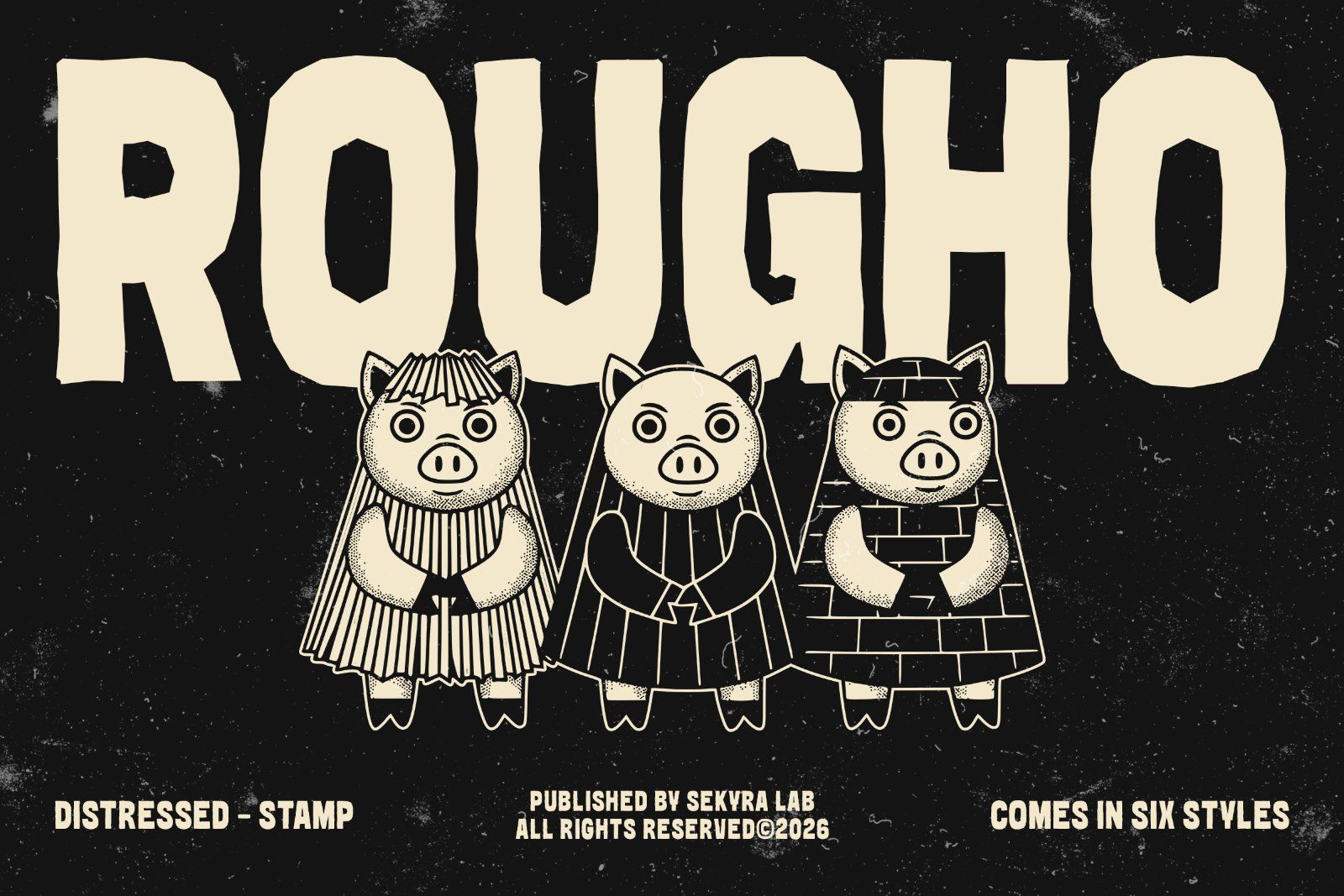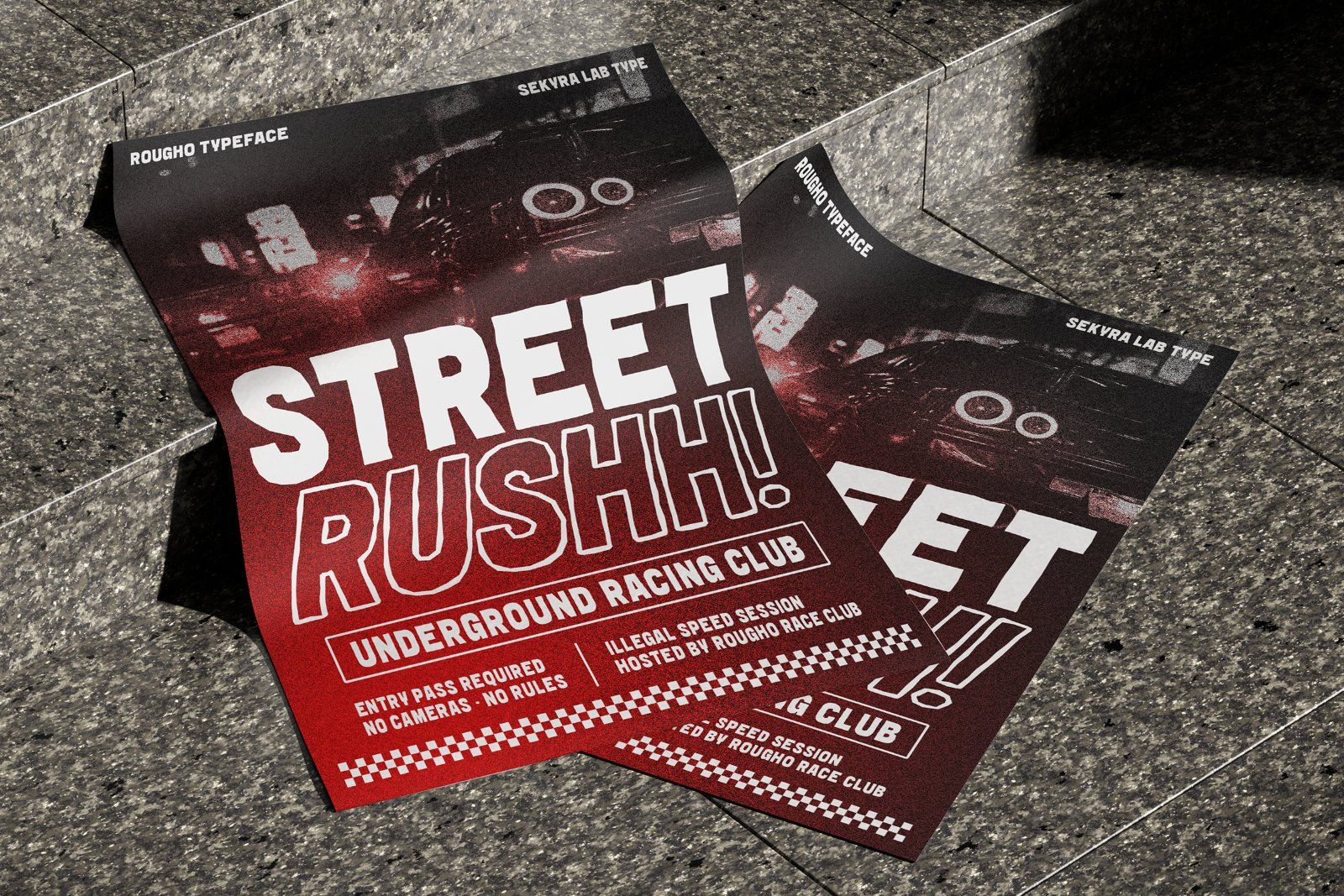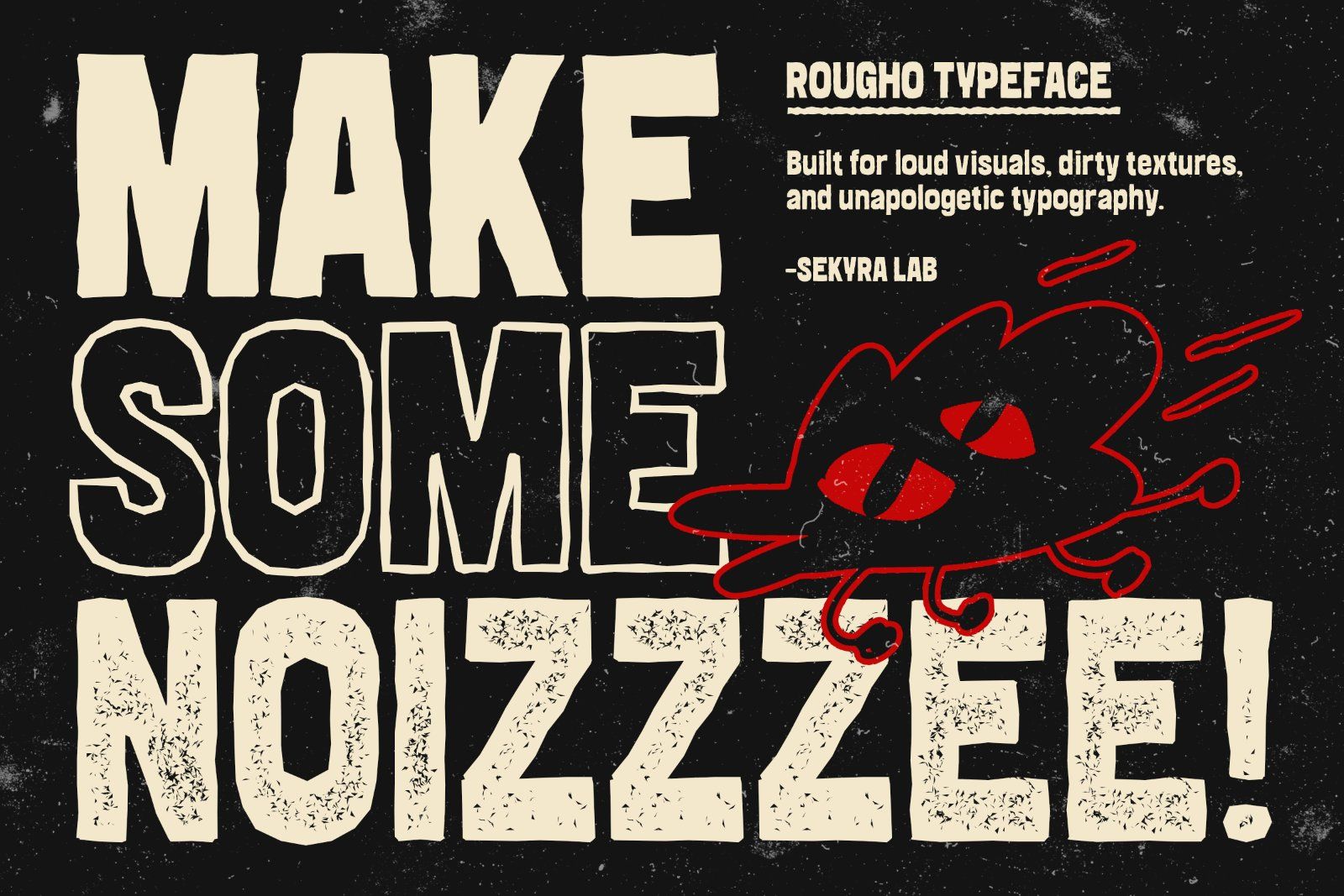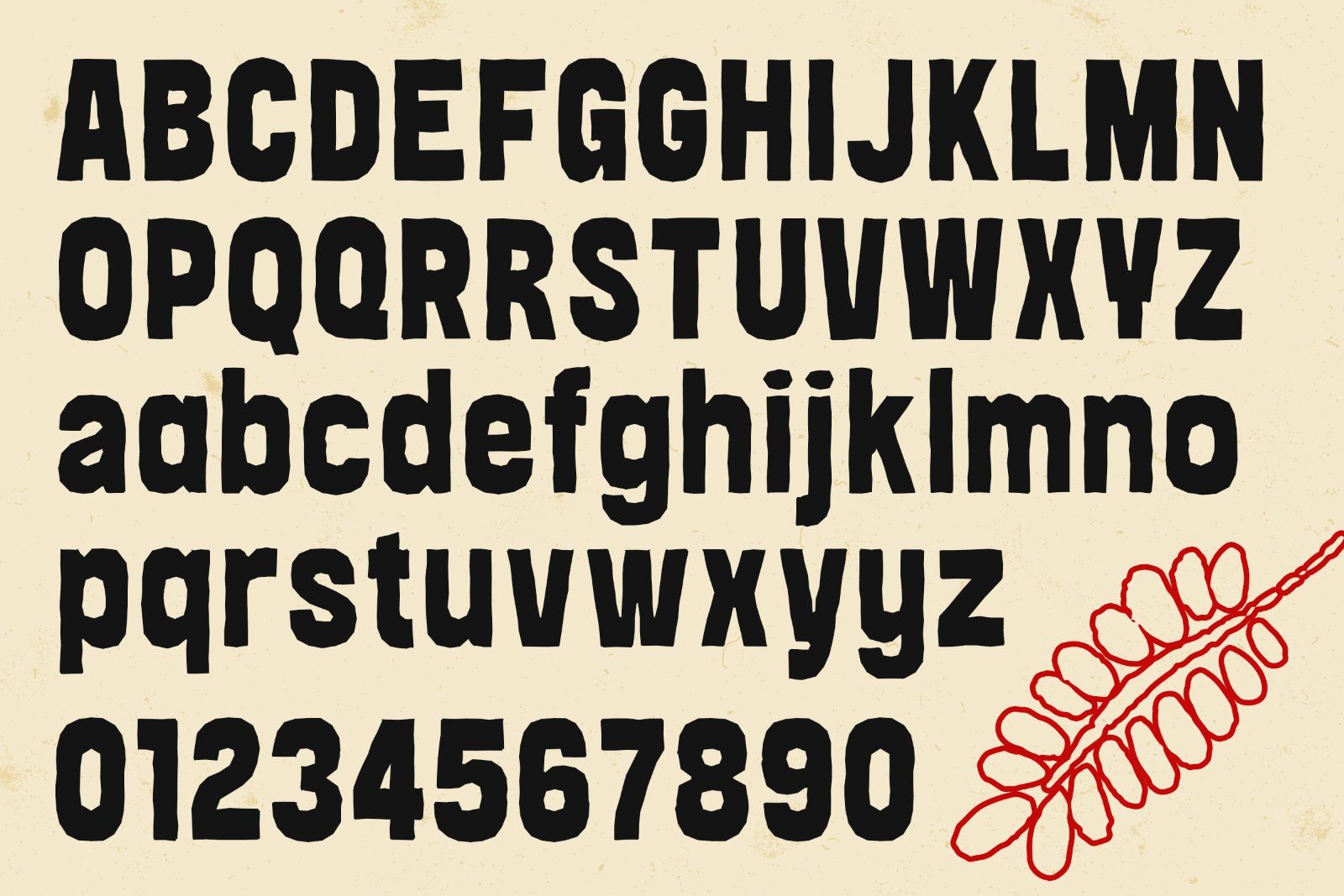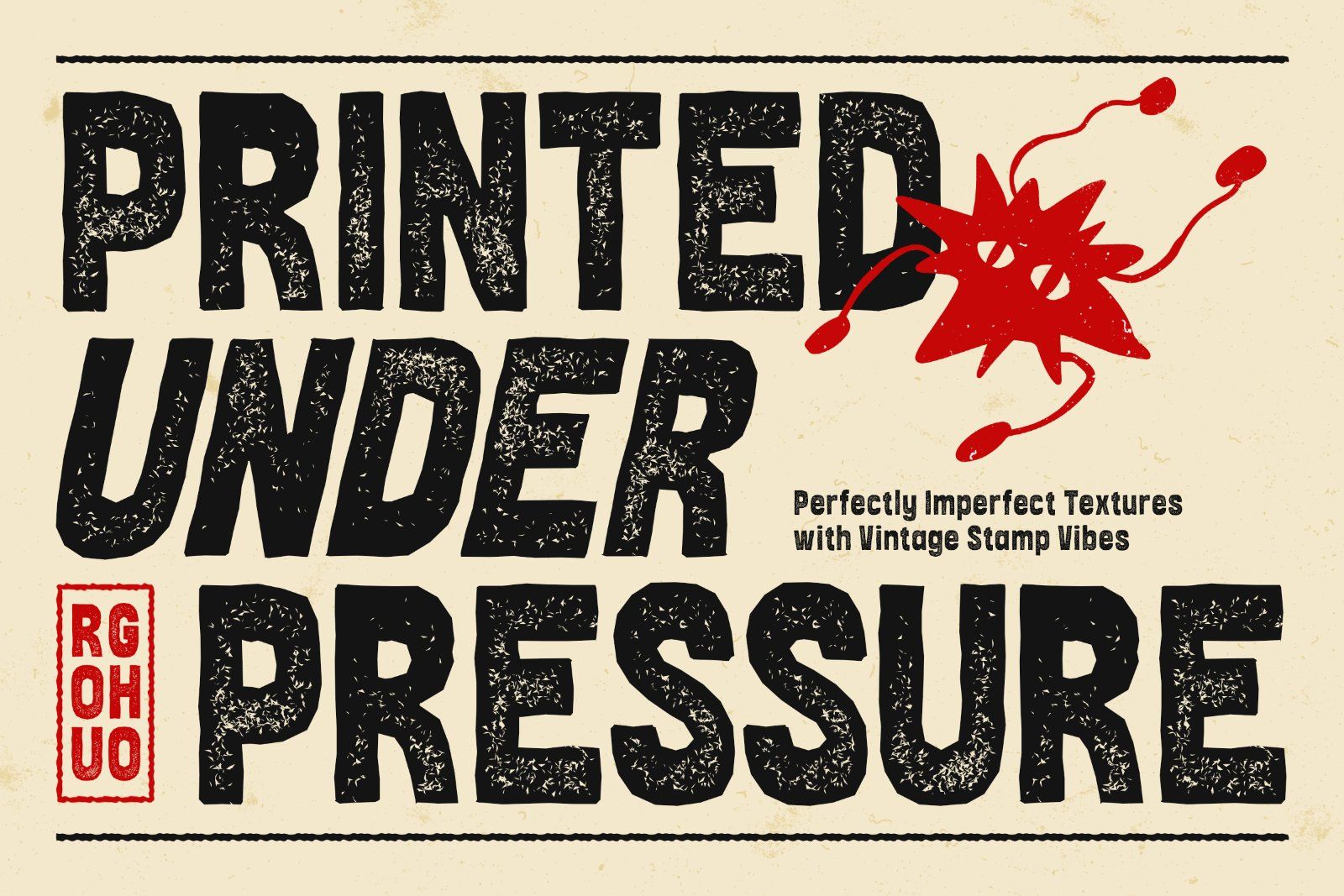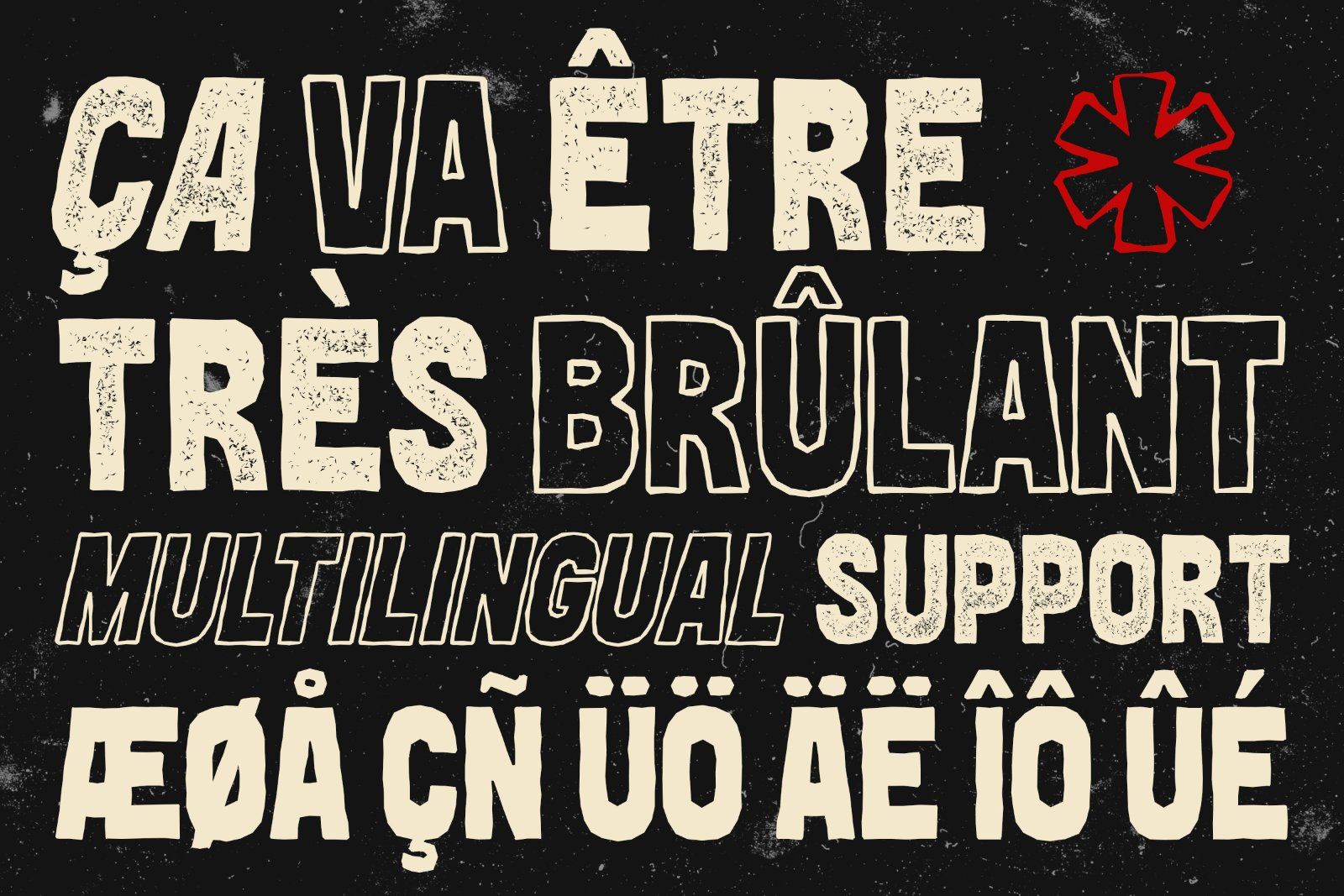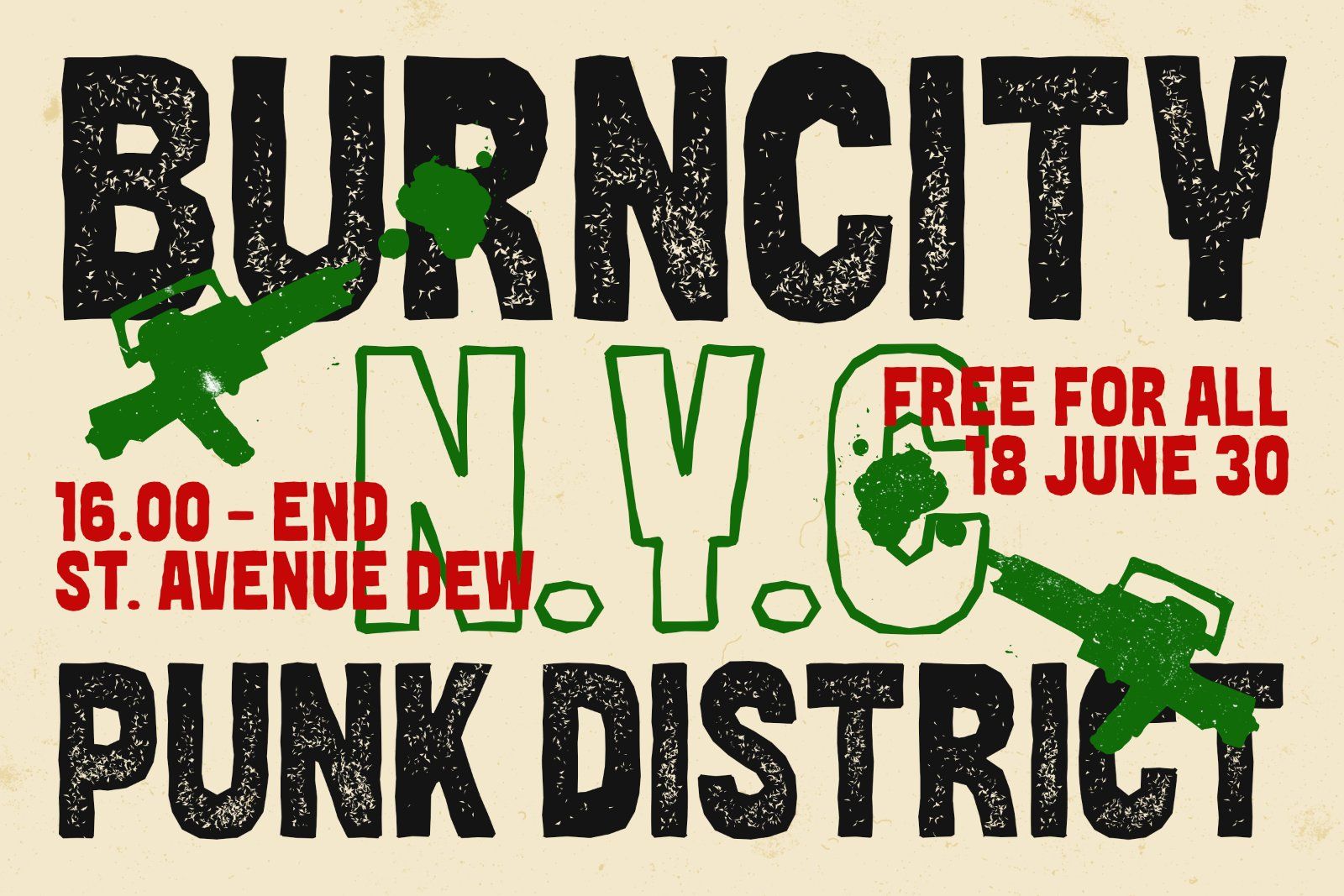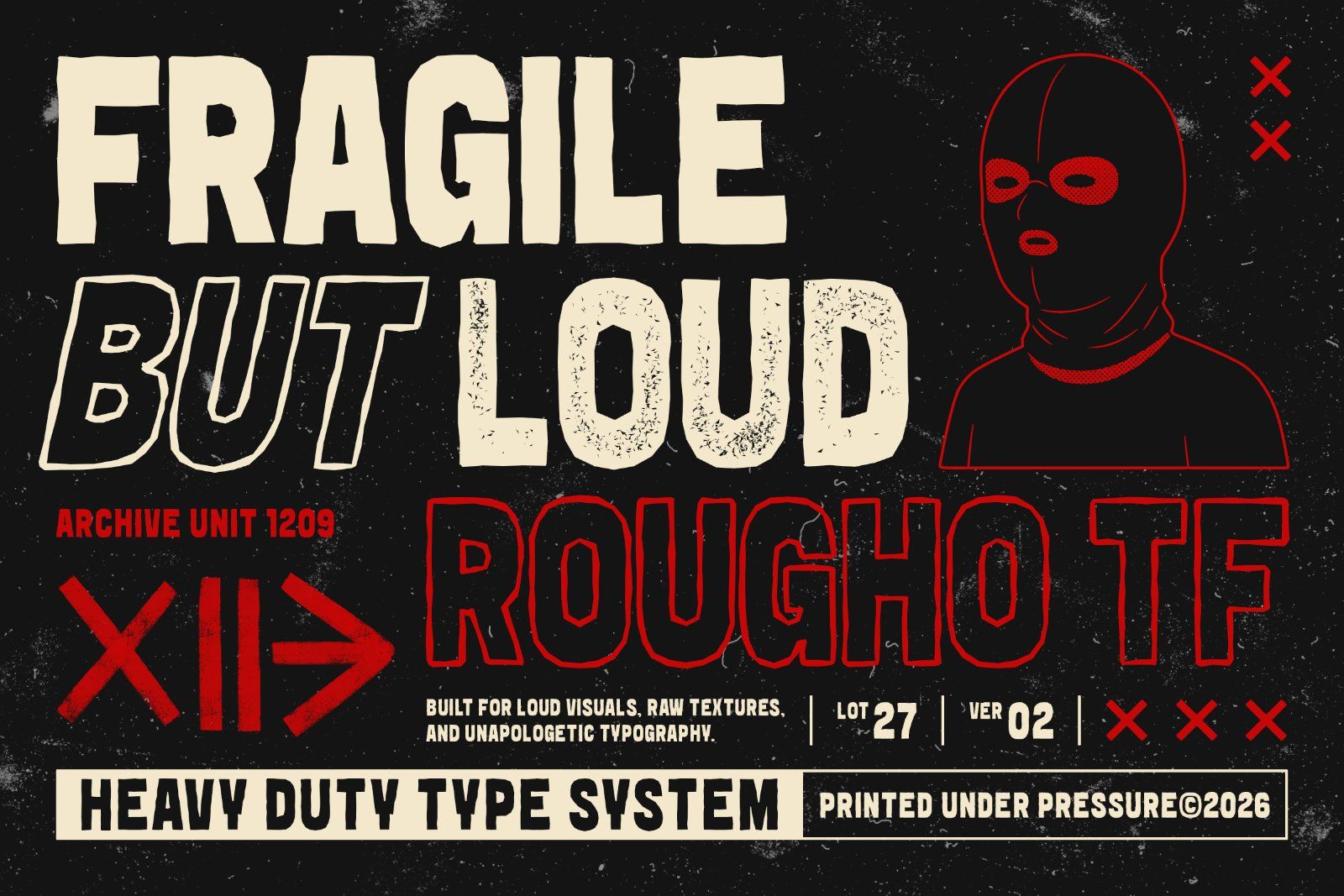
Rougho is a bold distressed display font designed to create loud visuals with raw texture and strong personality. Featuring rugged edges, imperfect details, and handcrafted letterforms, Rougho delivers an expressive vintage stamp aesthetic that feels gritty, energetic, and unapologetically bold.
Built for impactful typography, Rougho combines rough textures with condensed display proportions to help your designs stand out instantly. Whether you’re creating posters, album artwork, editorial layouts, branding, packaging, or promotional graphics, Rougho adds an authentic distressed character to every composition.
This typeface includes six versatile styles that allow you to explore different visual moods while maintaining a consistent bold identity.
Features
• 6 Styles (Regular, Outline, Stamp, Oblique, Outline-Oblique, Stamp-Oblique)
• Support for 91 languages